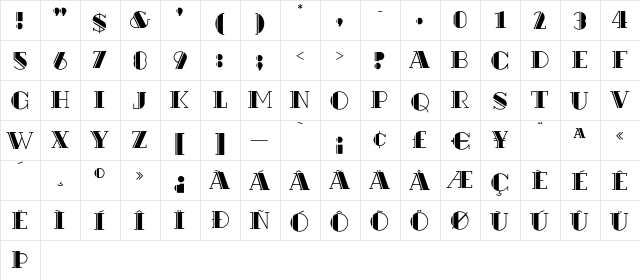
Rialto Regular
Design Context for Rialto Typeface
Rialto is a composed and adaptable typeface that performs quietly and consistently across a wide range of design contexts.